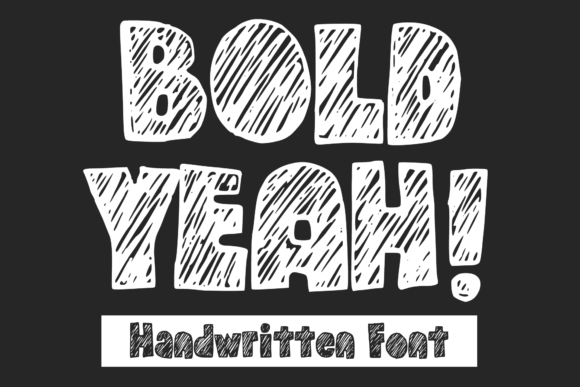
The Bold Yeah Font: A Game-Changer for Your Designs
I’ll never forget the time I was working on a project for a client who needed a bold, eye-catching font to make their design stand out. I scoured the internet for hours, trying out font after font, but nothing seemed quite right. That was until I stumbled upon the Bold Yeah font. It’s been a game-changer for my designs ever since! 😊
An Honest Review of Bold Yeah
So, what makes Bold Yeah so special? Let’s dive into the good stuff and, of course, a few quirks I’ve noticed.
What I Love About Bold Yeah ✨
• ✅ Unique Style: Bold Yeah has an incredibly cool, rough, and hand-drawn style that’s perfect for creating designs that scream for attention.
• ✅ Versatility: This font works great for a wide range of projects, from t-shirts and book designs to restaurant menus, blog writing, greeting cards, and stickers.
• ✅ Casual Touch: Bold Yeah adds a lovely casual touch to any design, making it perfect for creative projects that need a bit of personality.
While Bold Yeah is an amazing font, there are a few things to keep in mind:
• ⚠️ Legibility at Small Sizes: Like many bold fonts, Bold Yeah can be a bit tricky to read at very small sizes. Make sure to test it out at different sizes to ensure it’s legible for your project.
• ⚠️ Limited Formality: Due to its casual, hand-drawn style, Bold Yeah may not be the best choice for very formal or professional projects.
The Story Behind Bold Yeah
While the exact origins of Bold Yeah are unclear, it’s likely that the font was designed with the intention of creating a bold, eye-catching font for creative projects. The designer may have been inspired by the world of street art, graffiti, or hand-drawn typography.
Q: What is the best way to use Bold Yeah in my designs?
A: Bold Yeah works best as a display font, so use it to add emphasis and attention-grabbing power to your designs.